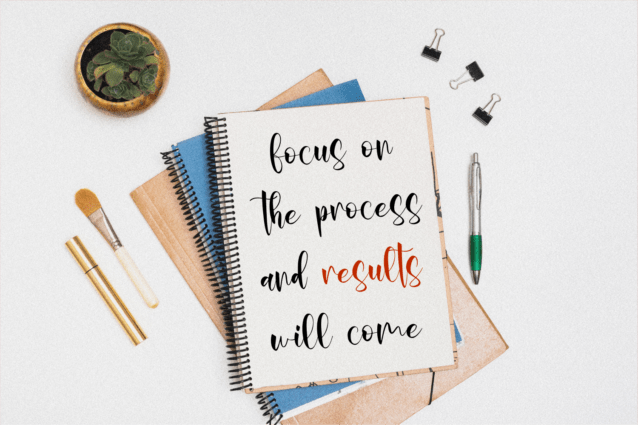
Alastyca Font
Alastyca Font is a Handwritten Script font that will make your designs look classic, Farmhouse, Boho, and Feminine. It is a great font for events, Wedding Project, signature, album covers, logos, magazines, advertisements, Crafting Idea but it also works great for other projects. Add it to your fonts library, and it will enhance your creativity!